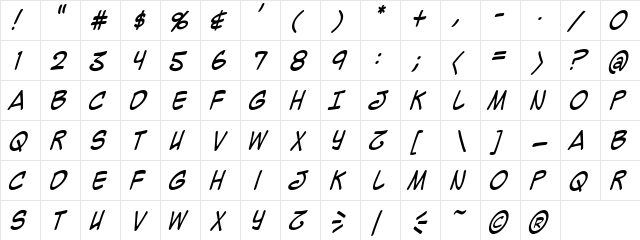
Mighty Zeo Caps 2.0 Italic
Design Context for Mighty Zeo Caps 2.0 Typeface
Mighty Zeo Caps 2.0 takes a measured approach to typography — its balanced proportions and neutral character make it a reliable workhorse for both digital and print work. Its italic angle brings a sense of urgency and motion to the letterforms.
Pro Tip: Use Mighty Zeo Caps 2.0 for emphasis, pull quotes, and subheadings where its slanted energy can add rhythm to the layout.